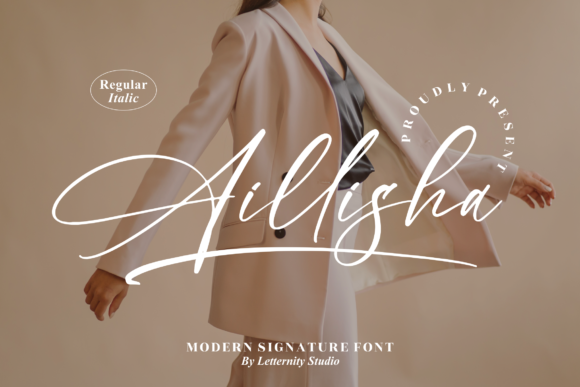
Aillisha Font: Elevate Your Designs with a Unique and Natural Feel
In the world of typography, fonts play a crucial role in conveying the tone and personality of a design. For designers and crafters looking for a script font that exudes elegance and sophistication, Aillisha Font is an excellent choice. This splendid script font is designed to impress with its unique and natural feel, making it perfect for a variety of creative projects.
What Makes Aillisha Font Stand Out?
Aillisha Font boasts beautifully flowing characters that set it apart from other script fonts. Its distinctive style is characterized by:
- Unique letterforms: Each letter is carefully crafted to create a sense of fluidity and movement, giving the font a natural and organic feel.
- Natural connections: The characters are designed to connect seamlessly, creating a beautiful flow that enhances the overall aesthetic of any design.
- Elegant lines: The font features smooth, elegant lines that add a touch of sophistication to any project.
Aillisha Font is an excellent choice for a variety of creative projects, including:
- Wedding invitations: The font’s elegant and sophisticated style makes it perfect for wedding invitations, adding a touch of romance and luxury to your designs.
- Birthday cards: Aillisha Font is also great for birthday cards, allowing you to create personalized and memorable greetings for loved ones.
- Personal branding: The font’s unique and natural feel makes it an excellent choice for personal branding, helping you to establish a distinctive and recognizable identity.
- Creative projects: Aillisha Font can be used for a wide range of creative projects, including stationery, packaging, and digital designs.
Why Choose Aillisha Font?
With so many script fonts available, why choose Aillisha Font? Here are just a few reasons:
- Unique style: Aillisha Font offers a distinctive style that will set your designs apart from the crowd.
- Ease of use: The font is easy to read and works well in a variety of sizes, making it versatile and practical.
- High-quality design: Aillisha Font is designed to high standards, ensuring that your designs look professional and polished.
Tips for Using Aillisha Font
To get the most out of Aillisha Font, here are a few tips:
- Use it sparingly: Aillisha Font is a statement font, so use it sparingly to add emphasis and impact to your designs.
- Experiment with colors: The font works well with a range of colors, so experiment to find the perfect combination for your design.
- Pair it with other fonts: Aillisha Font can be paired with other fonts to create a unique and visually appealing design.
Aillisha Font is a splendid script font that offers a unique and natural feel, making it perfect for a variety of creative projects. With its beautifully flowing characters, elegant lines, and distinctive style, this font is sure to impress. Whether you’re a designer or crafter looking for a font that will elevate your designs, Aillisha Font is an excellent choice.
Get Ready to Elevate Your Designs with Aillisha Font